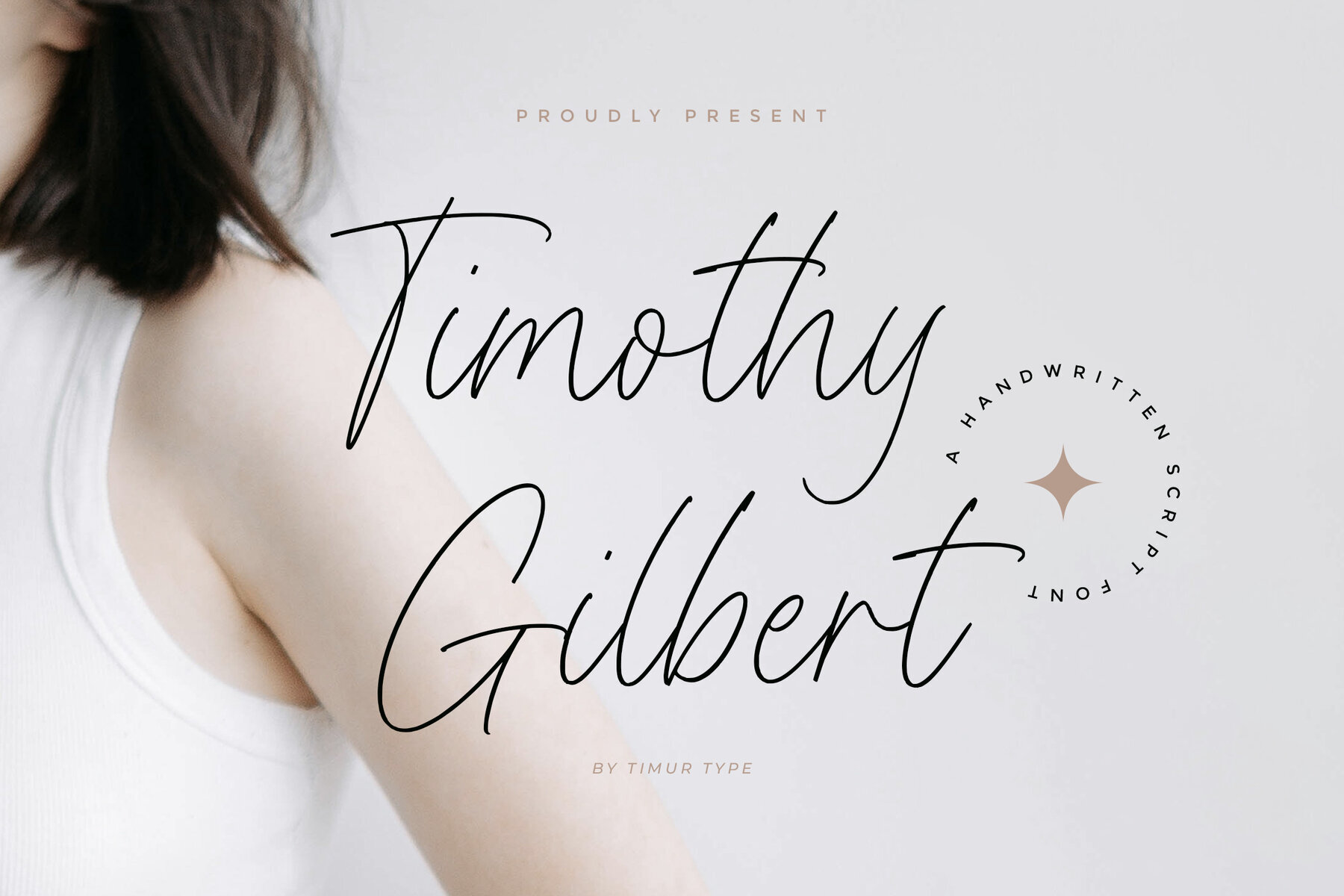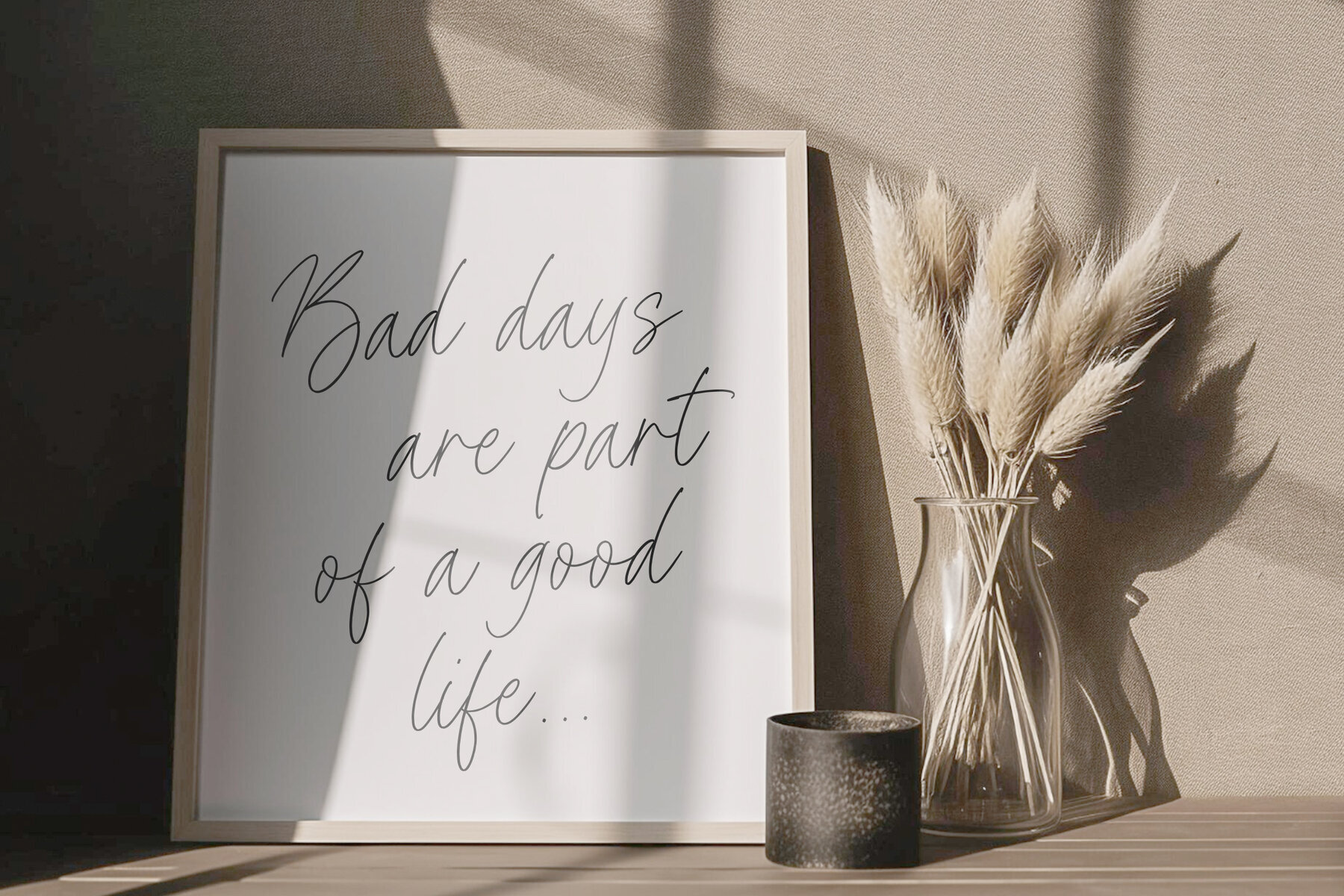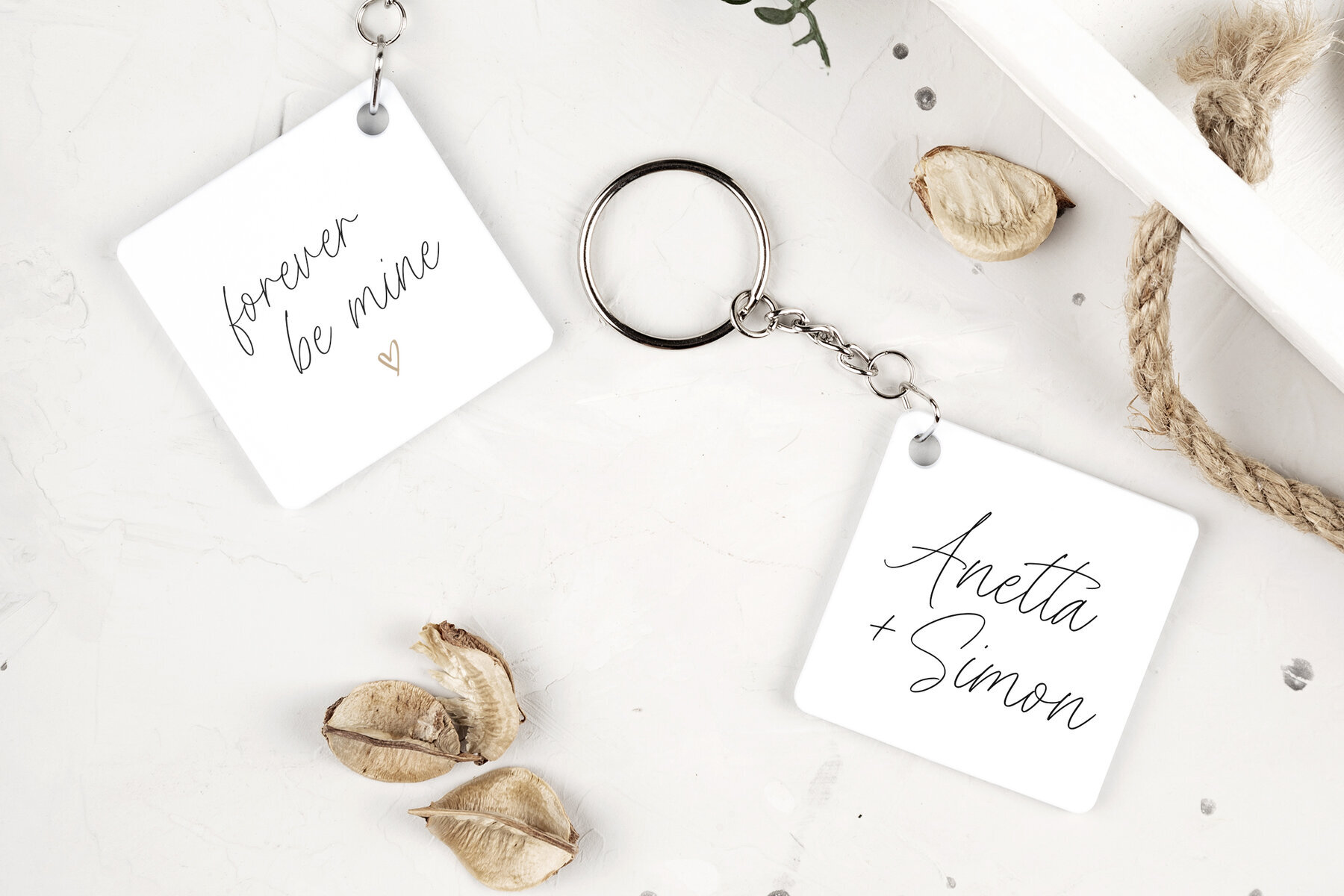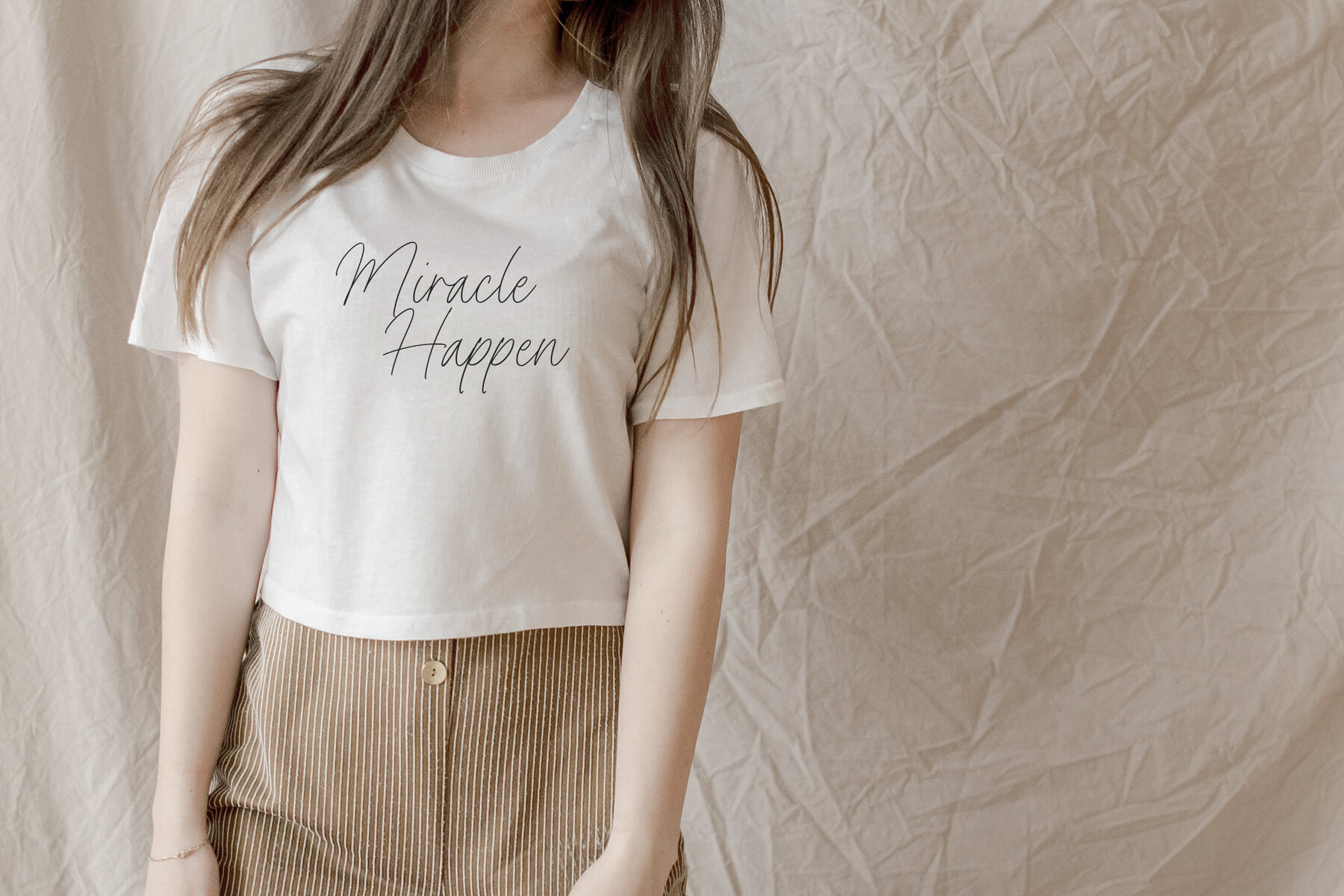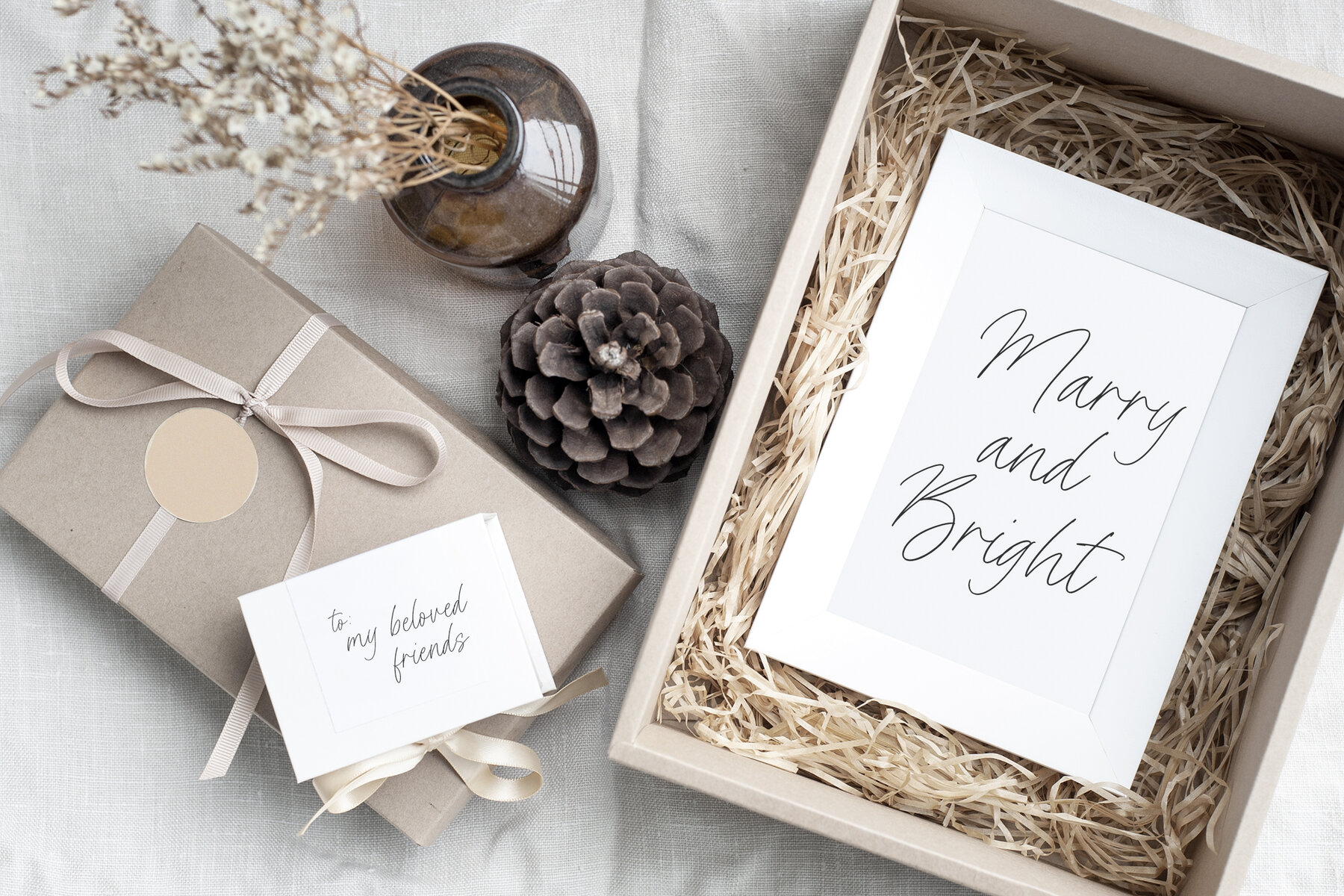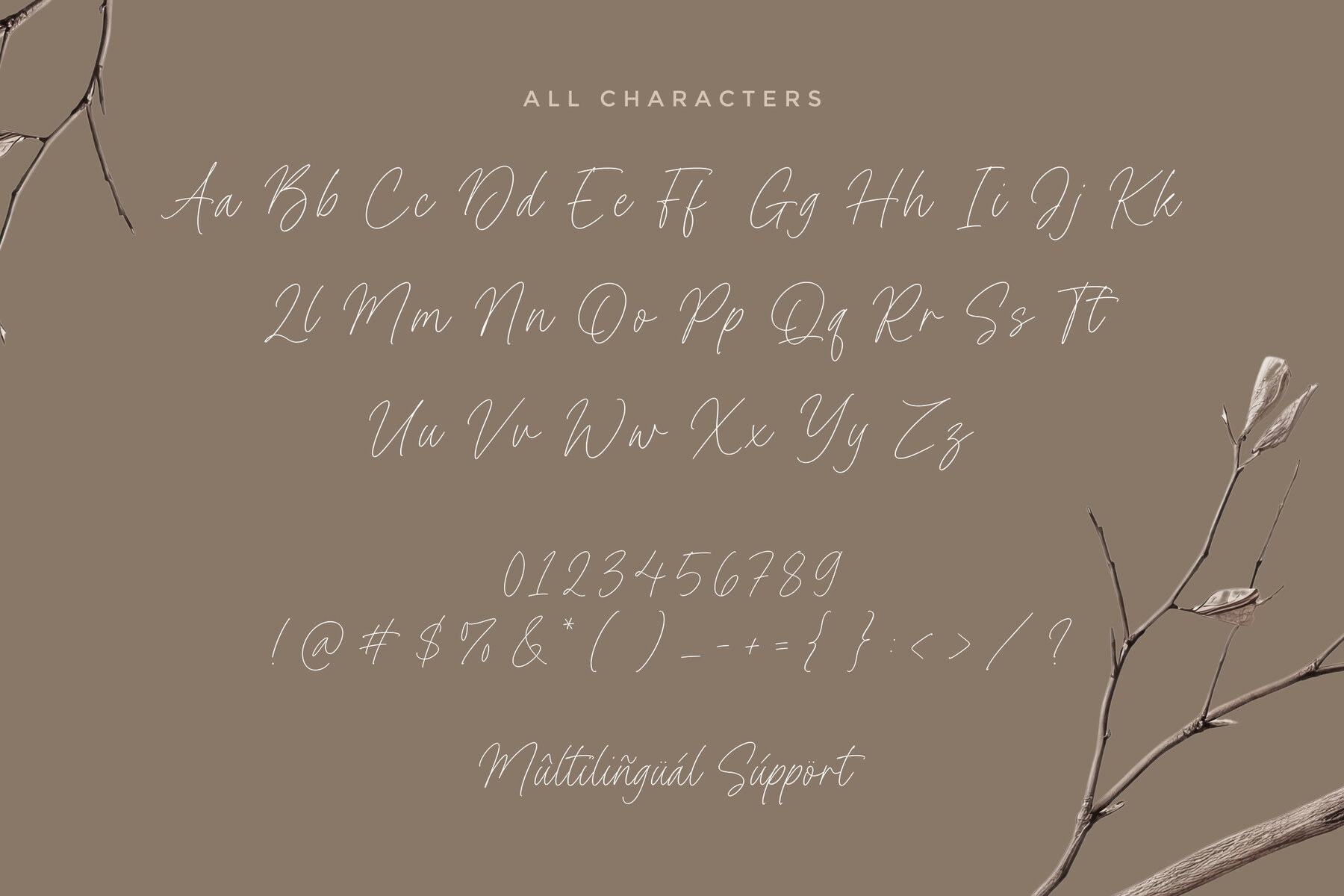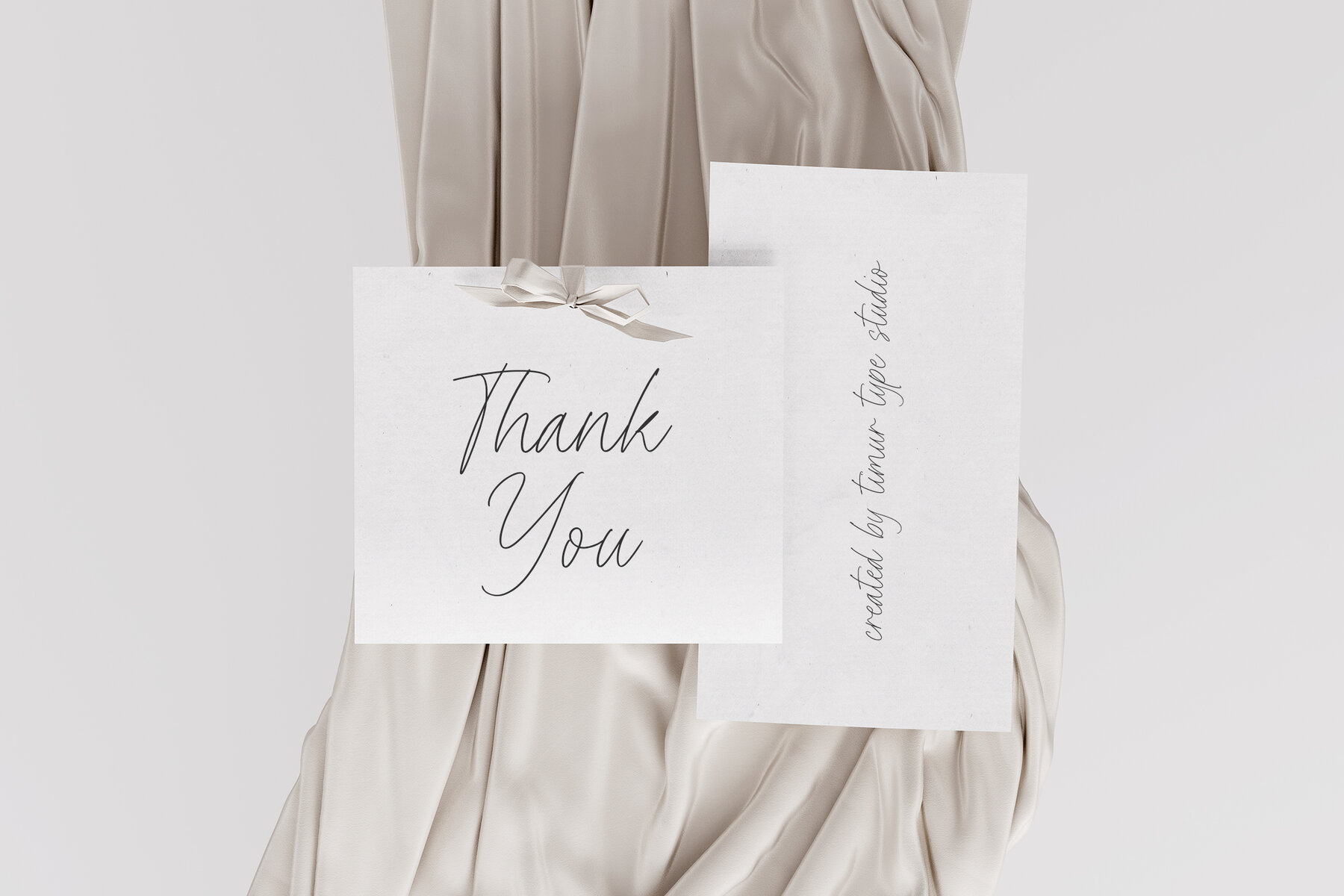
Timothy Gilbert Font
Timothy Gilbert
Timothy Gilbert is a modern signature font that brings a fresh and inviting touch to any project. Perfect for product packaging, branding projects, magazines, social media, and weddings, this font adds a warm, personal feel to your words and designs.
The font includes a complete set of standard alphabet letters and punctuation, making it versatile and easy to use. It also offers multilingual support, allowing you to reach a broader audience. Explore the elegant charm of Timothy Gilbert and see how it transforms your creative endeavors.